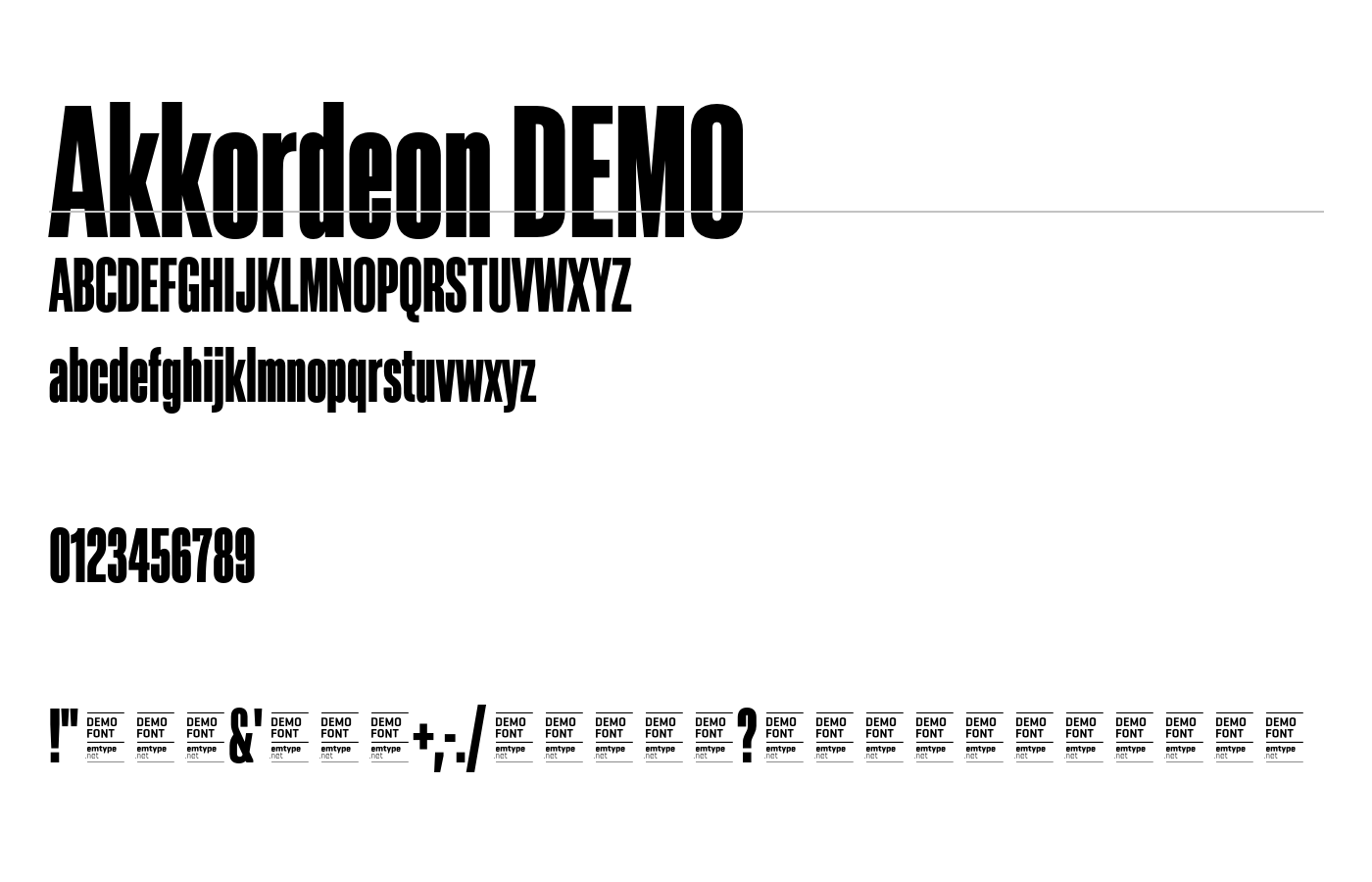
Akkordeon is a bold, condensed sans serif font known for its strikingly tall and narrow letterforms that create a powerful visual impact. With exceptionally high contrast and sharp, clean strokes, it evokes a modern and assertive personality, making it ideal for attention-grabbing headlines, posters, and branding where space is limited but presence is key. This font works best in designs that require strong emphasis and clarity, especially in fashion, editorial, and advertising contexts.
Akkordeon Font
About Akkordeon Font